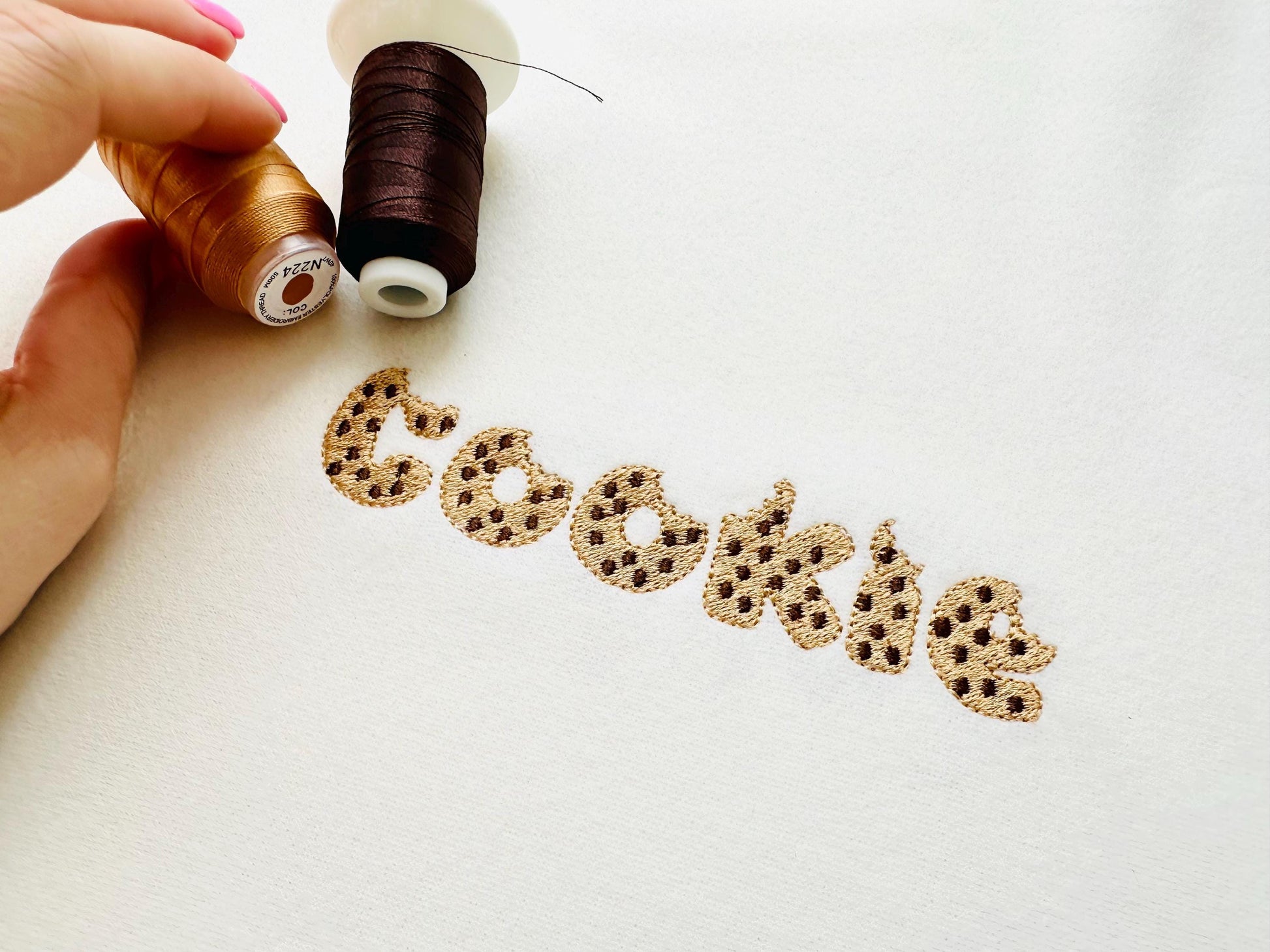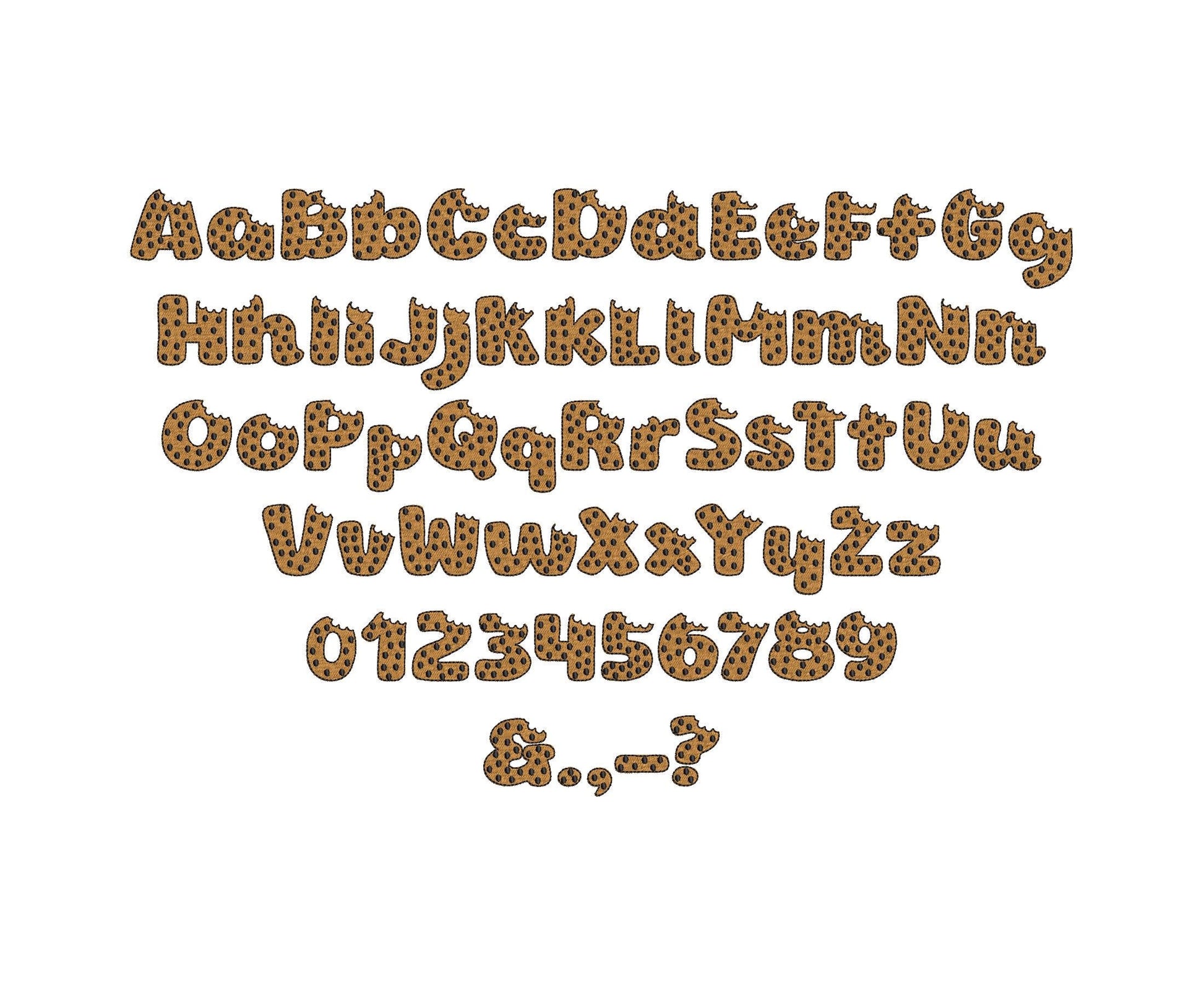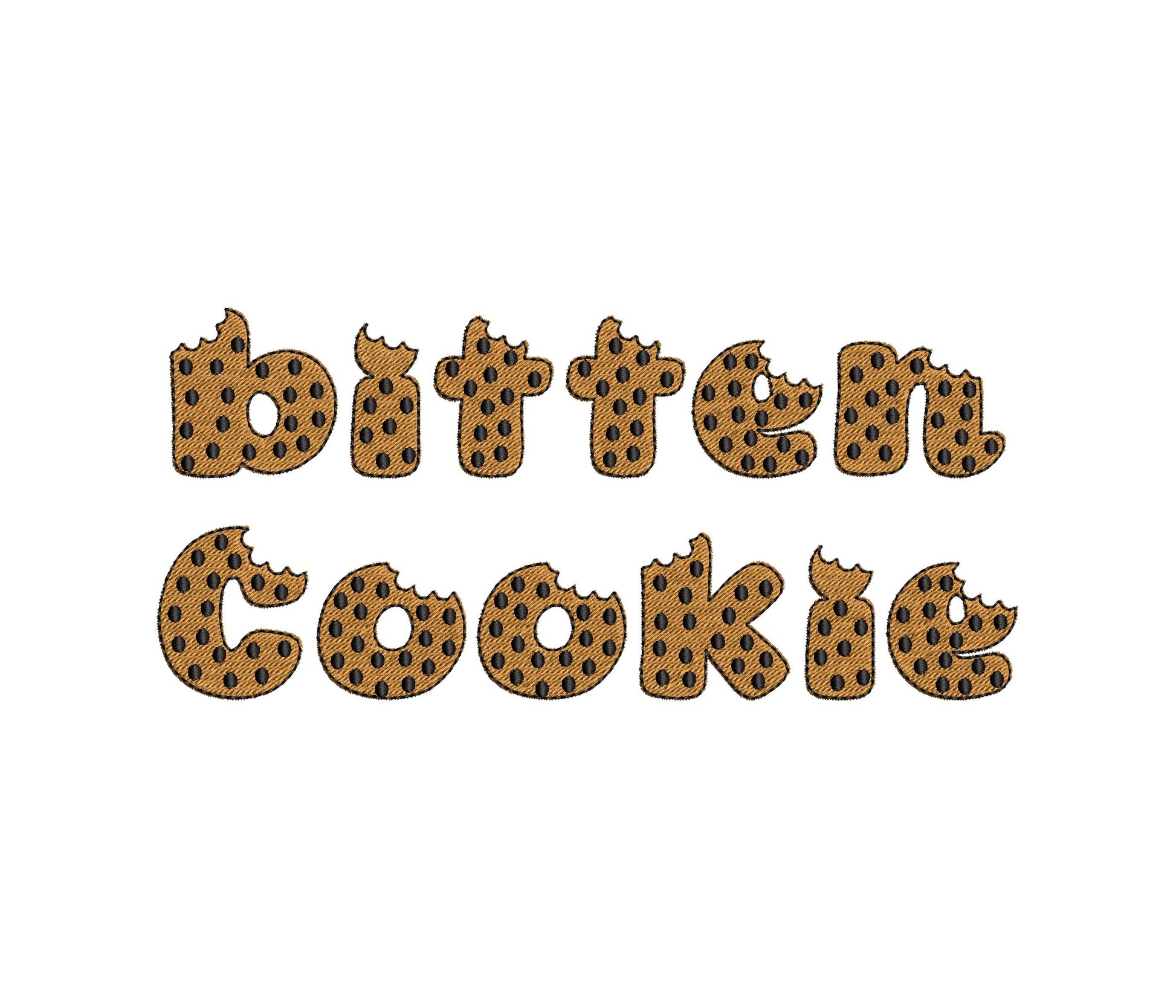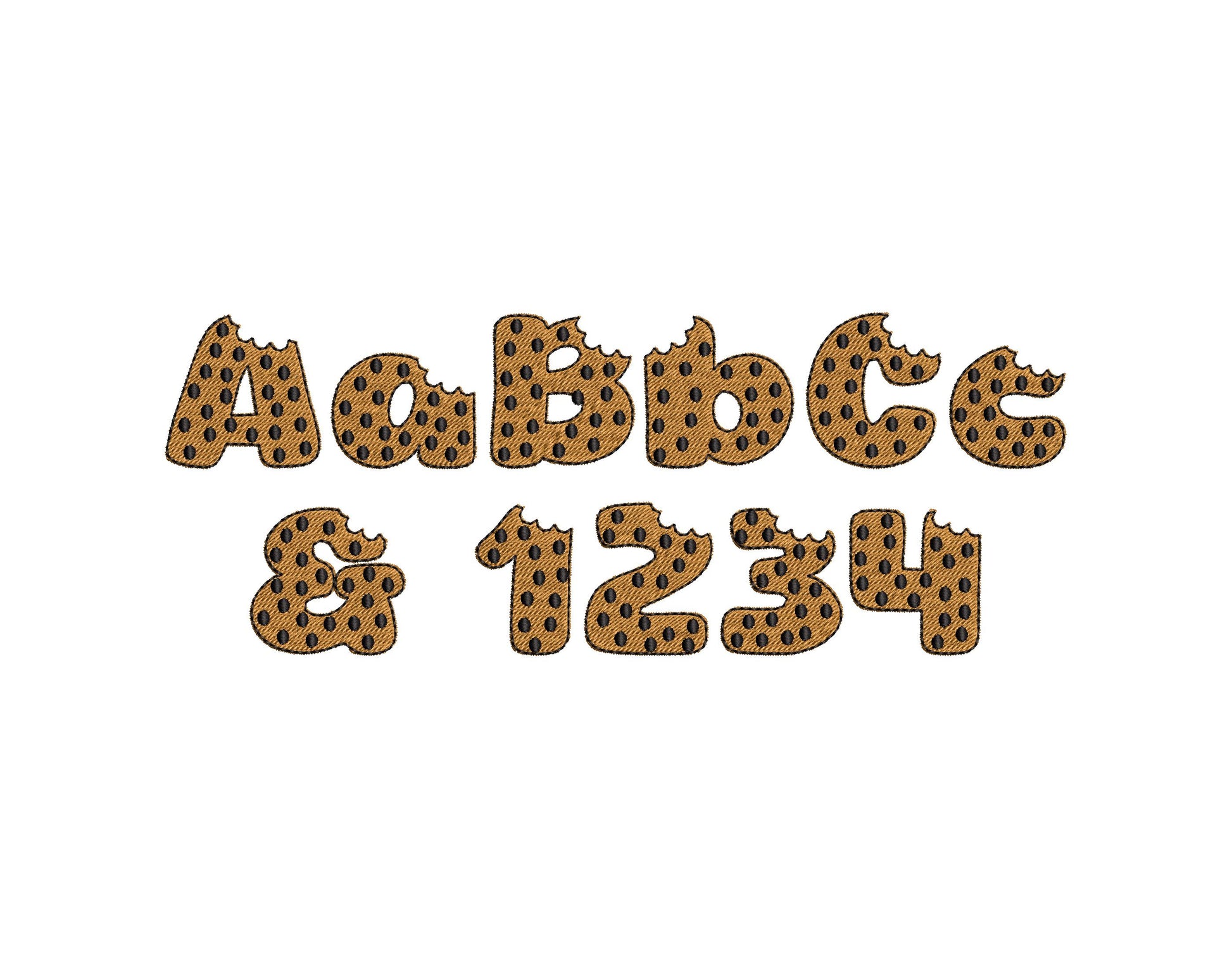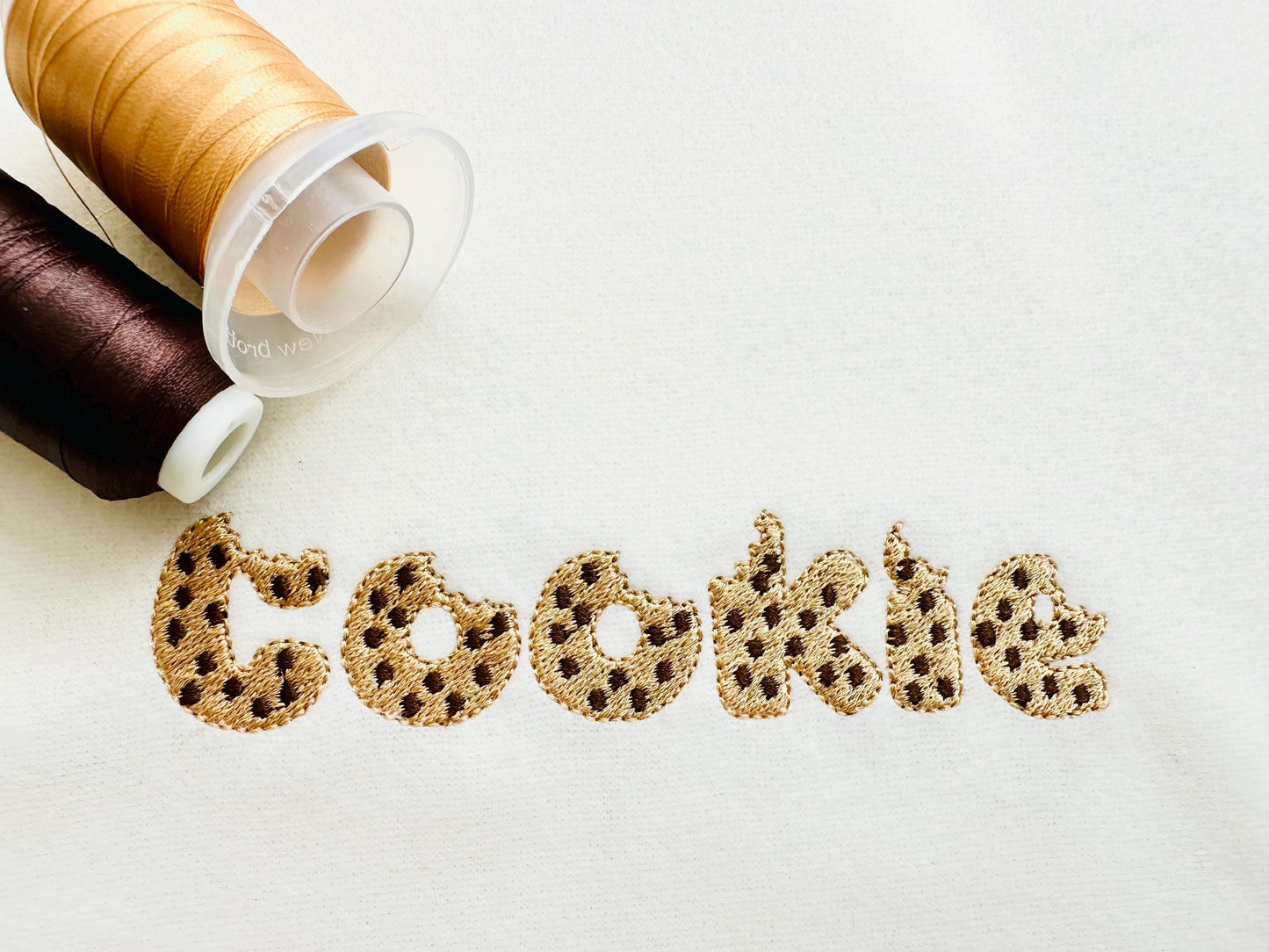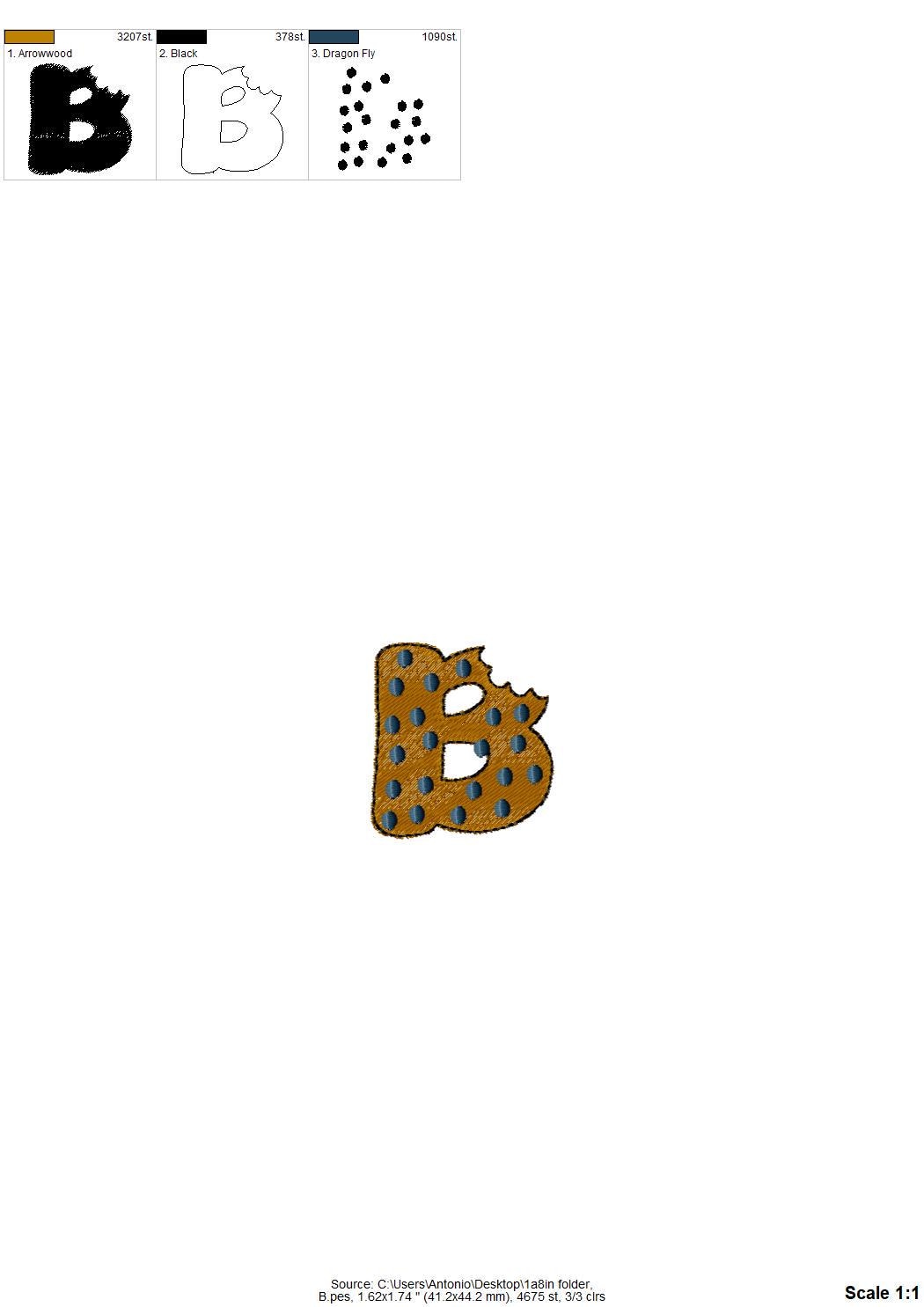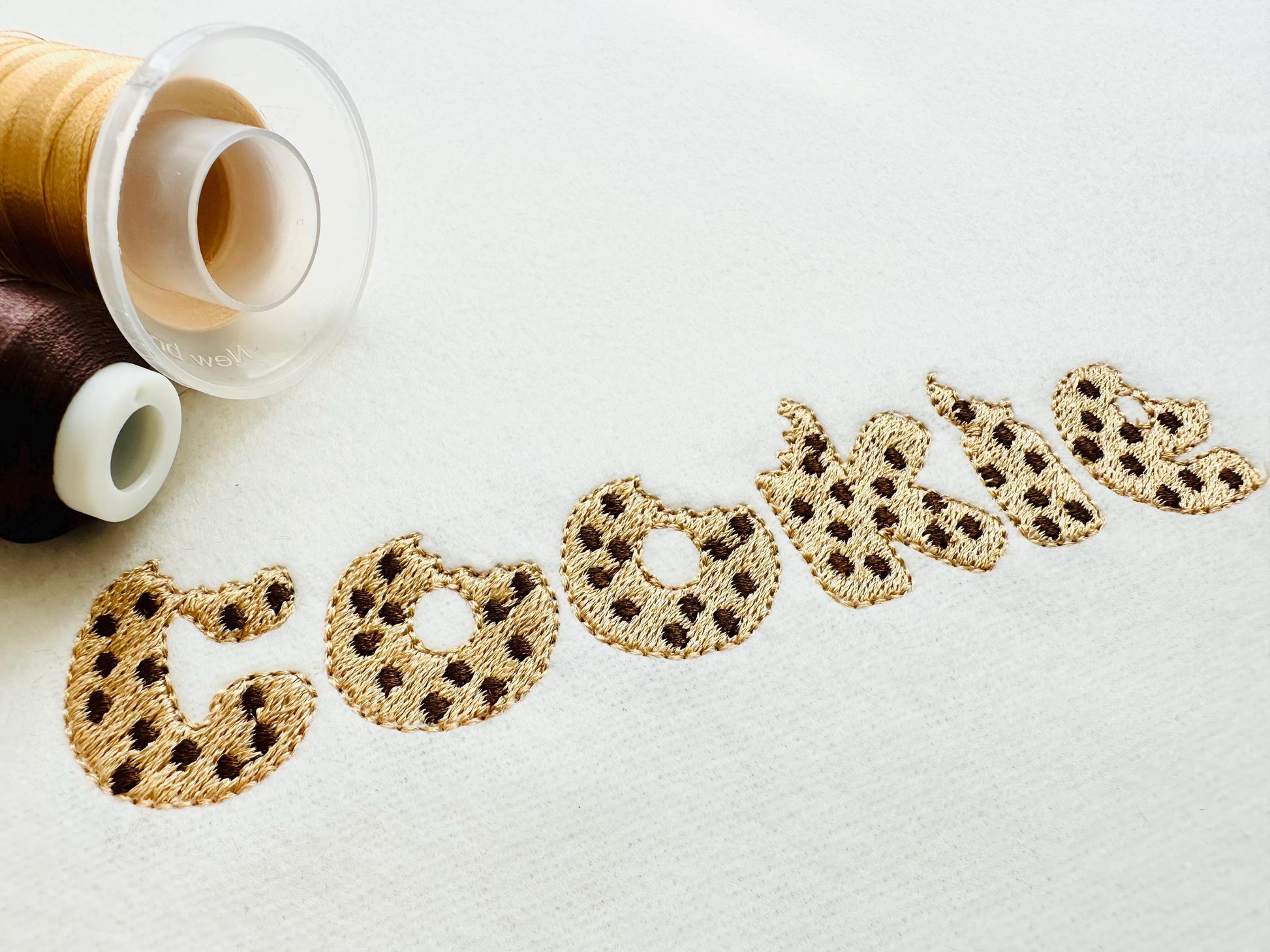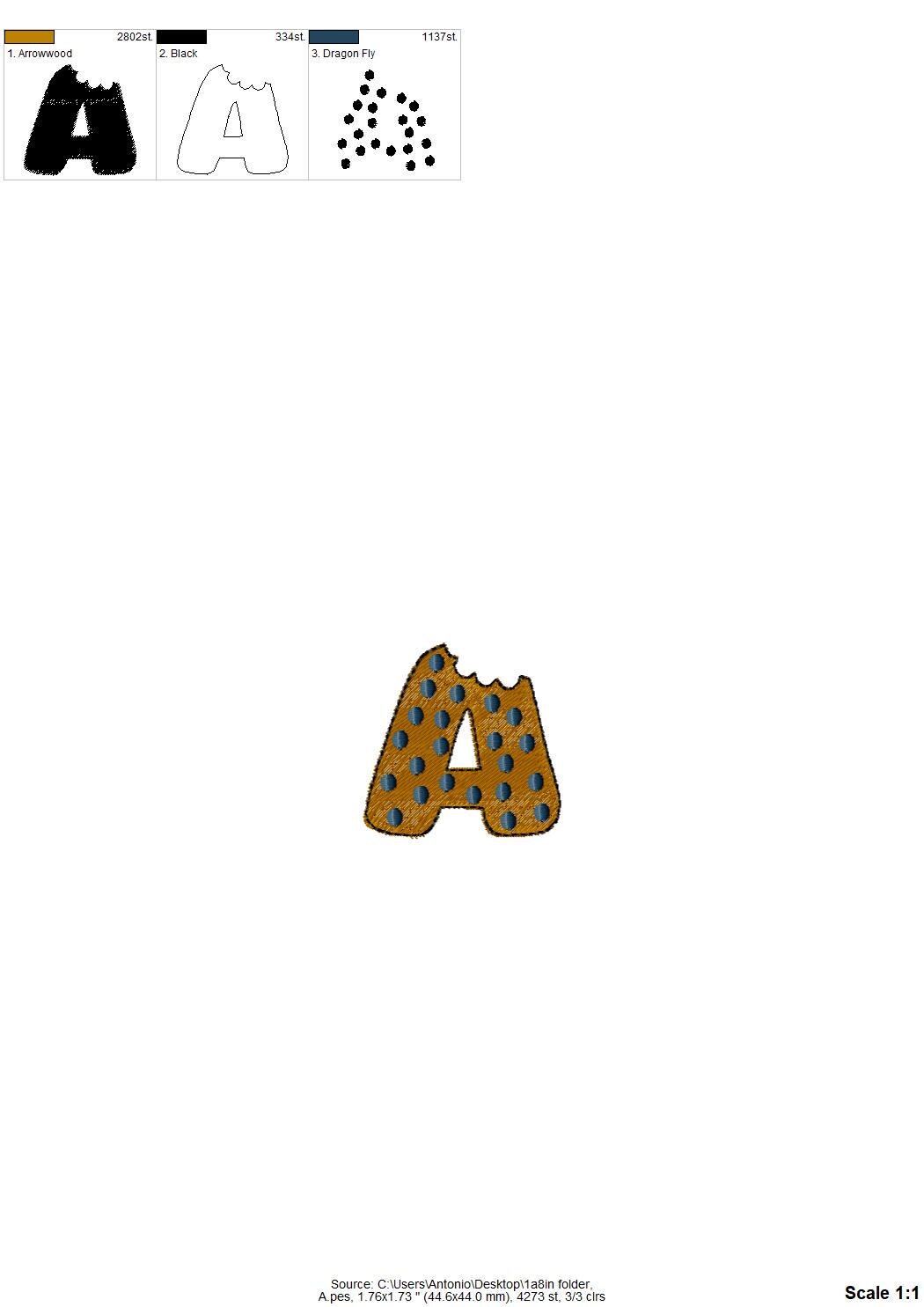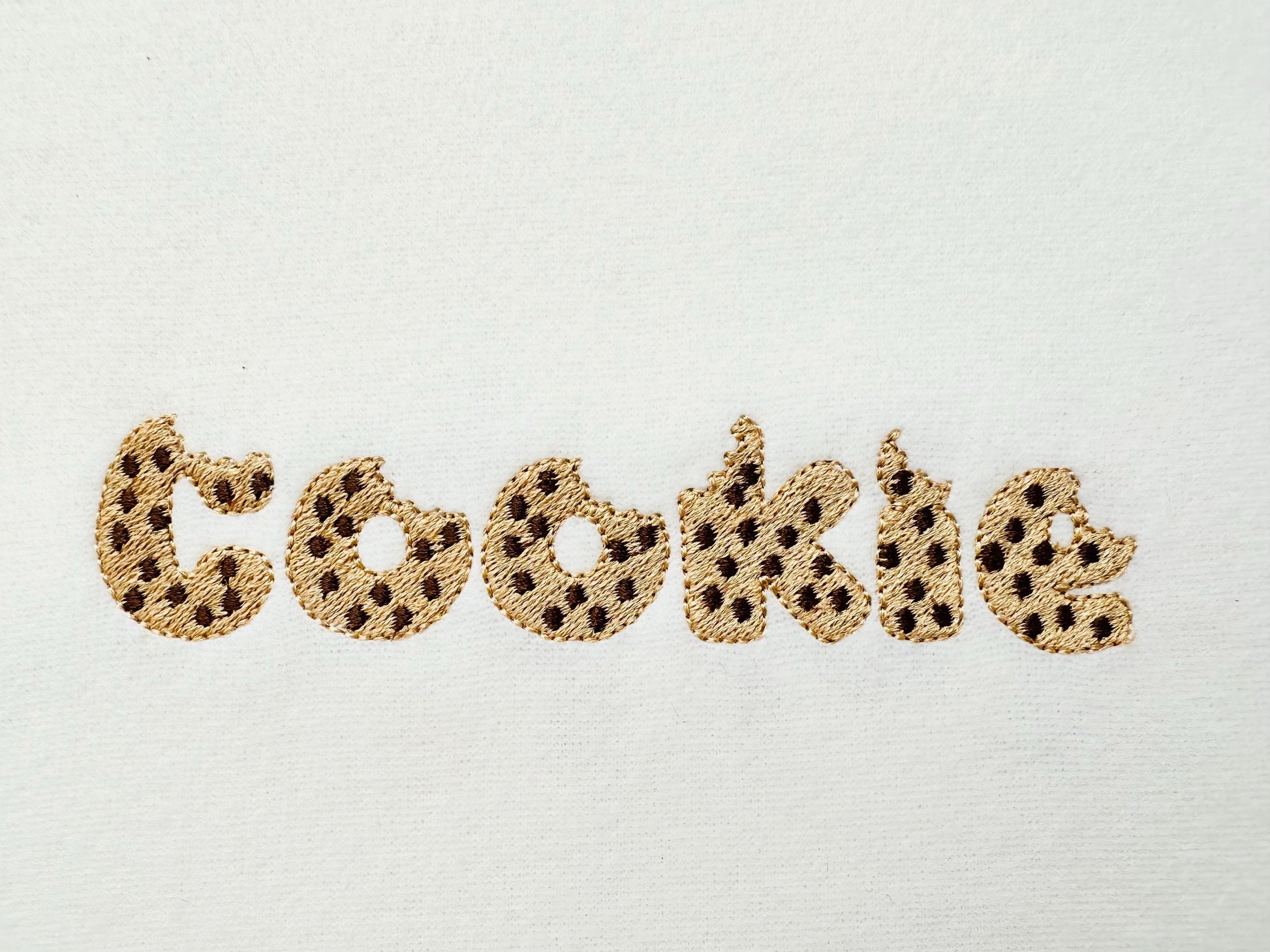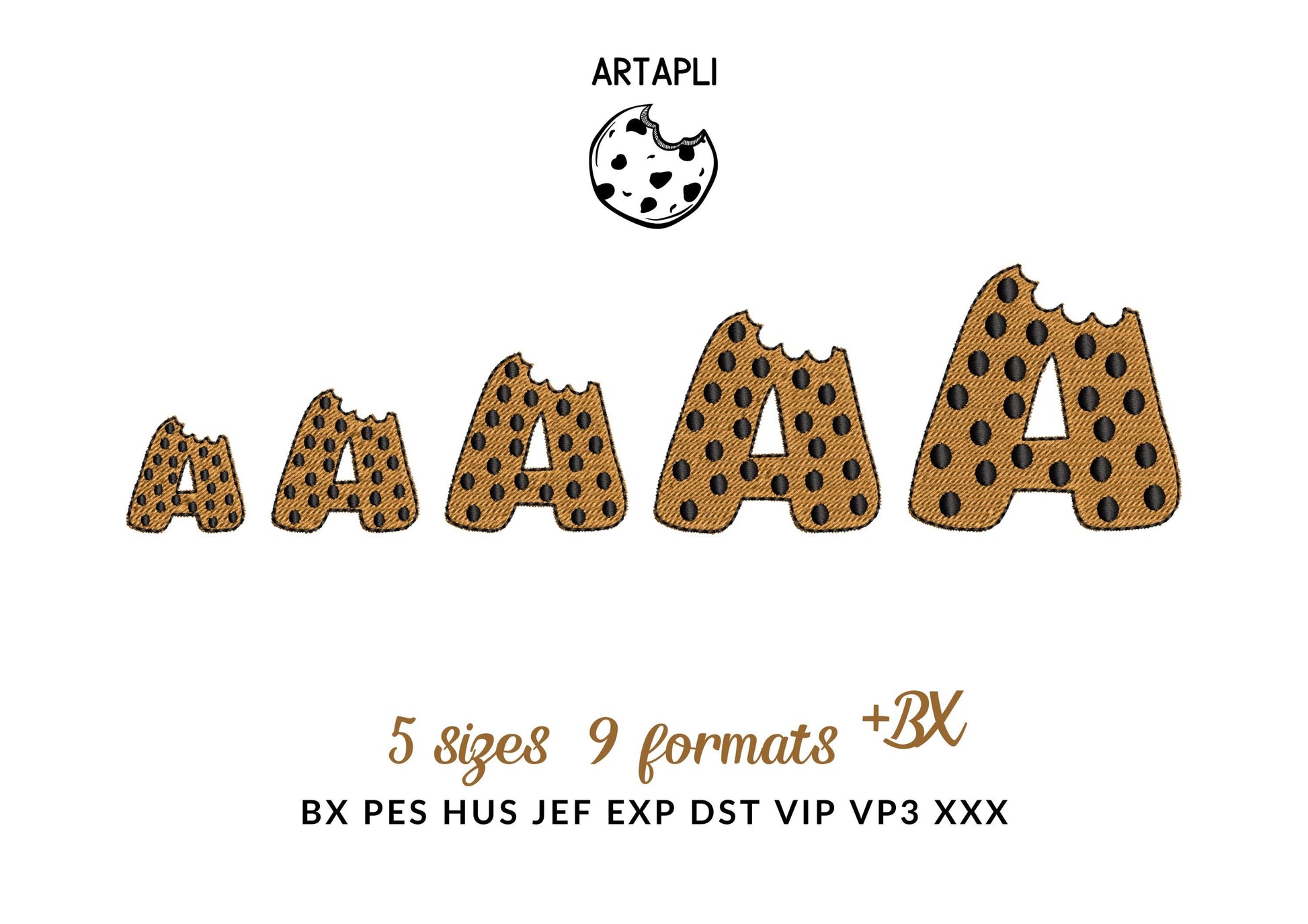
Or click to open the linkA chocolate chip cookie font with a bite taken out, in fill stitch. Fun for kids' names, baking aprons, bibs and party decor.
Uppercase and lowercase letters, numbers 0 to 9 and punctuation. Five sizes: 1, 1.2, 1.4, 1.8 and 2 inches.